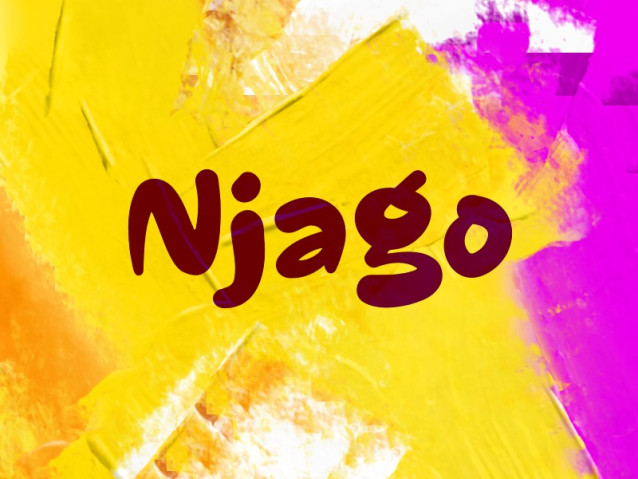
Njago Font
Njago Font is a simple and modern display font suitable for quotes, logos, headings, titles, and many more. Use it on any of your creative projects, and your designs will become outstanding!